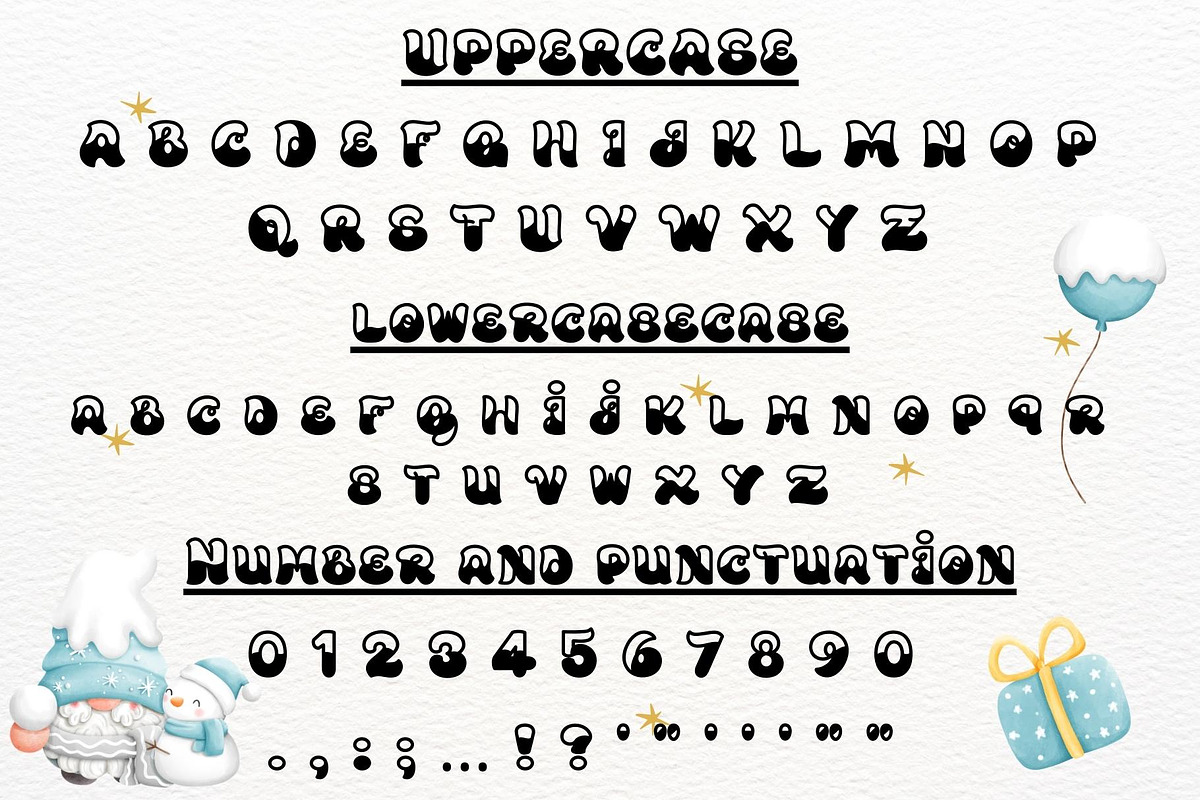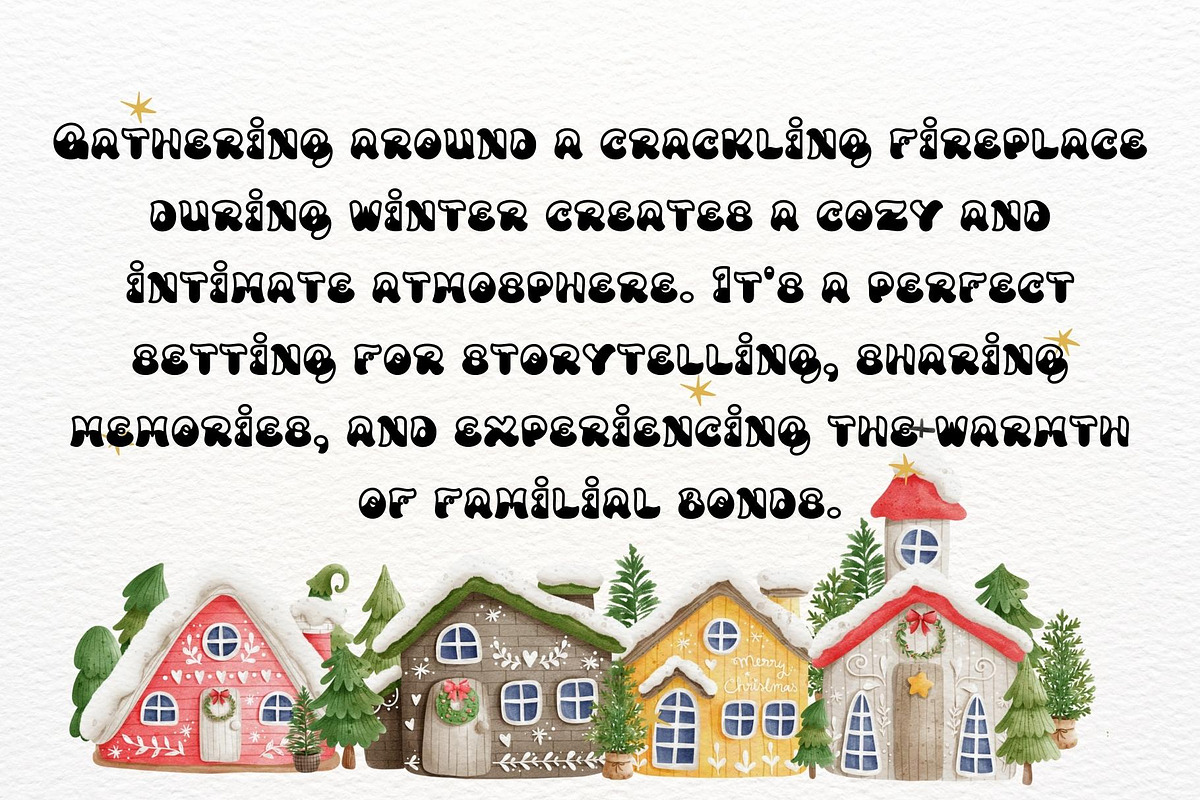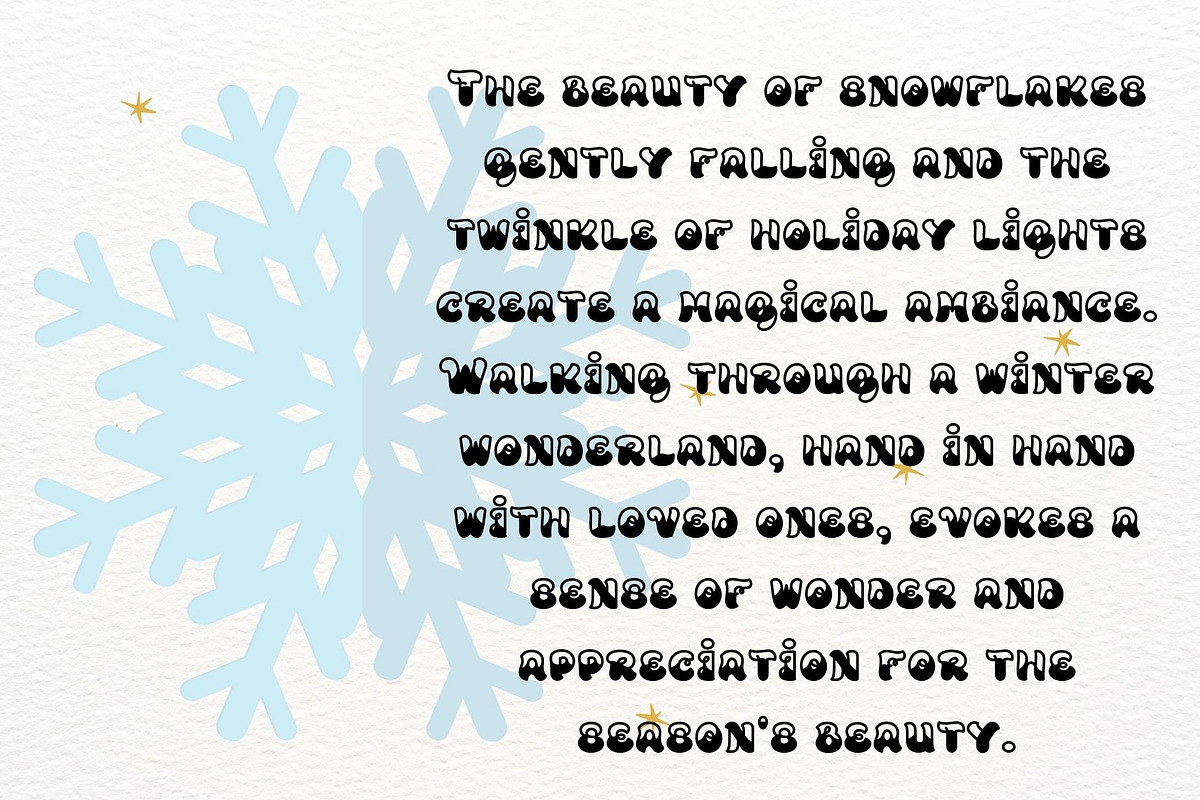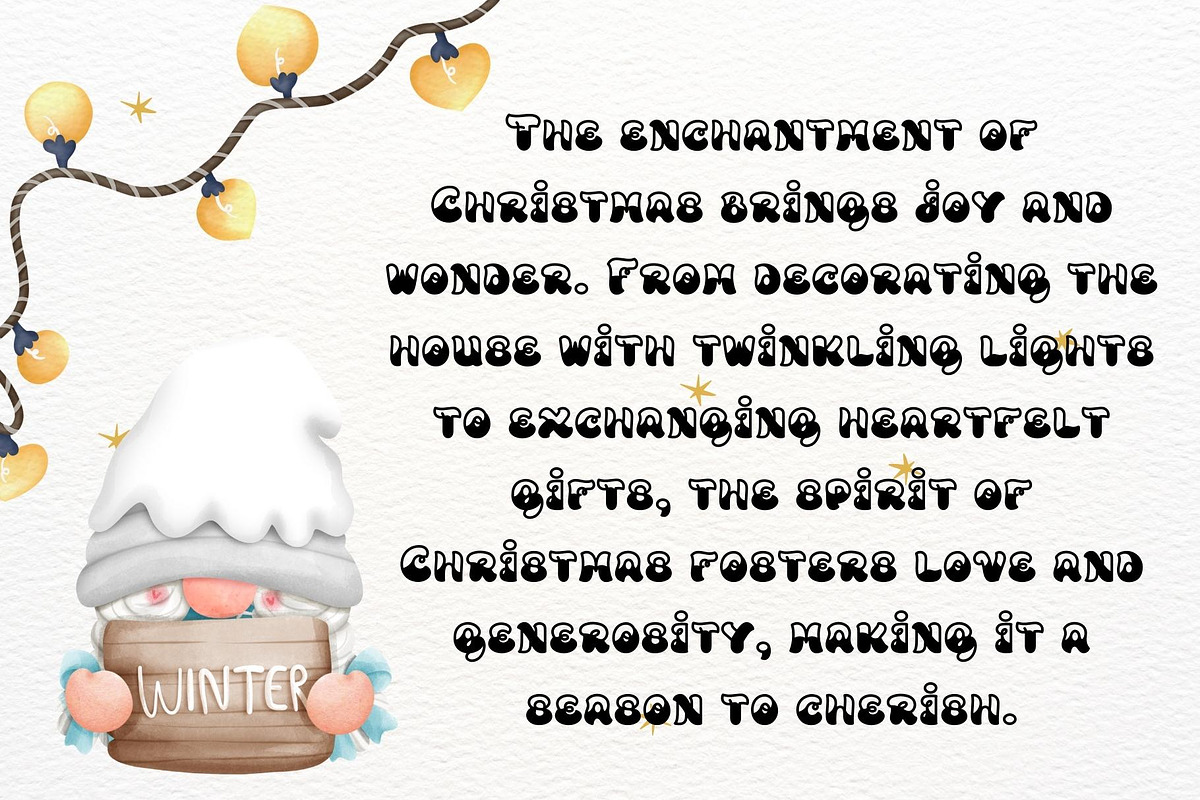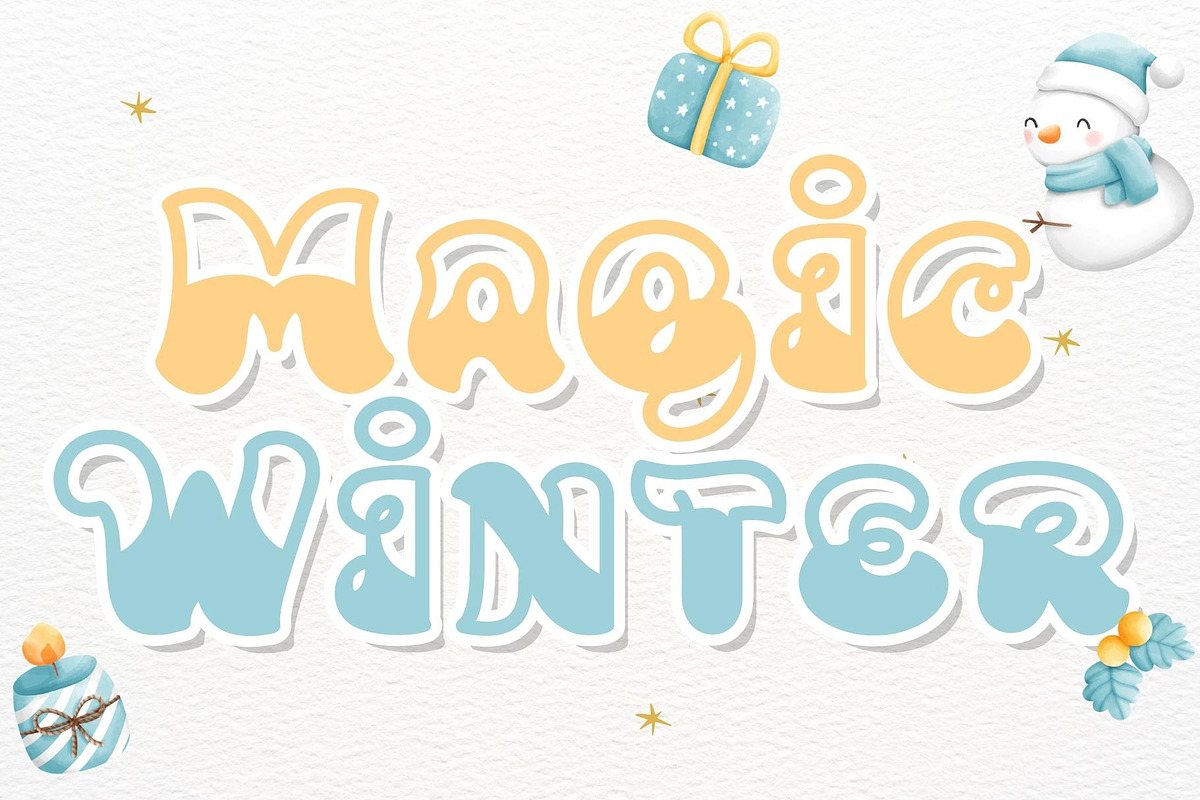
Indulge in the enchanting allure of "Magic Winter," a font that weaves a whimsical tapestry of frosty elegance. Each letter is a brushstroke of winter's magic, inviting you to infuse your designs with seasonal charm. Elevate your projects with the unique grace of "Magic Winter" and let creativity sparkle in every character.